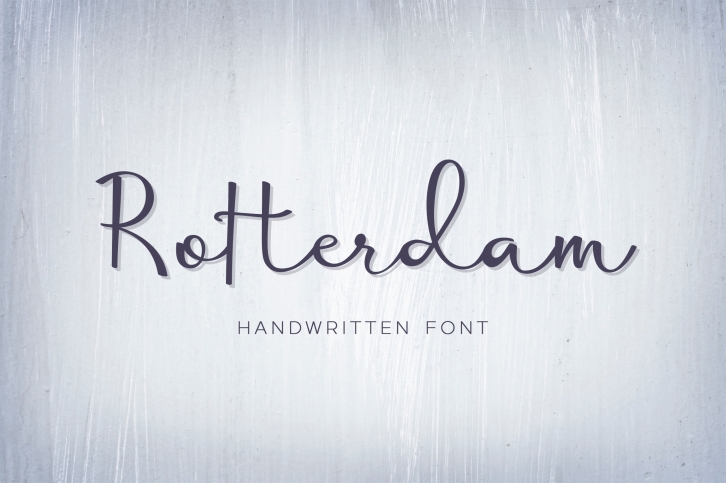
Rotterdam is a trendy and unique font with an authentic style. It was designed by ArtiTeki and it's a great choice for creative people who need such a font. It was released on October 2, 2019 and the file size is 9.62 MB. Rotterdam will add an organic vibe to any design idea!